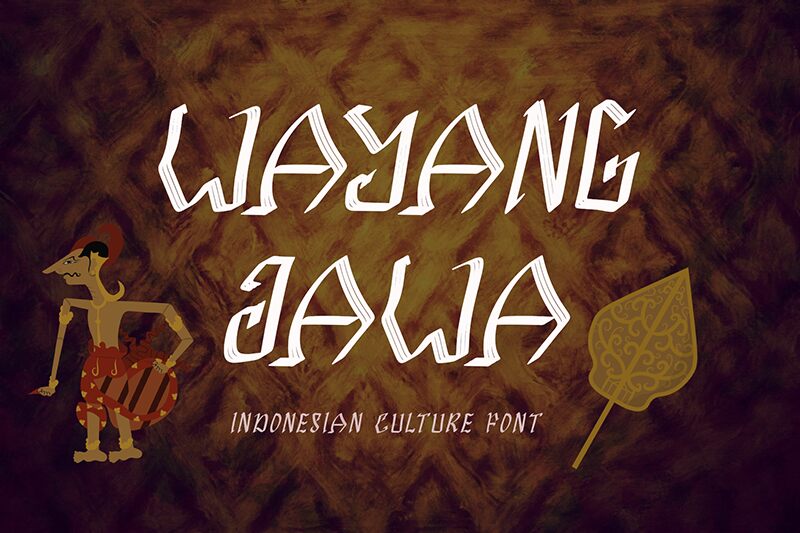
Wayang Jawa is a calligraphic font that brings a new meaning to the term Indonesian script. Created by Yoga Letter, this calligraphy font was inspired by wayang golek, a popular form of Javanese shadow puppetry.
Wayang Jawa is perfect for invitations, branding, brochures, posters and other creative designs, and can also be used for logos, websites, t-shirts, or anything else that would match its elegant presence.